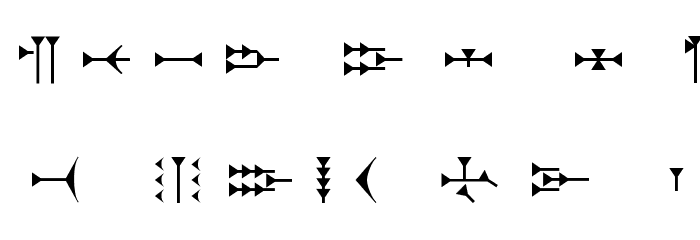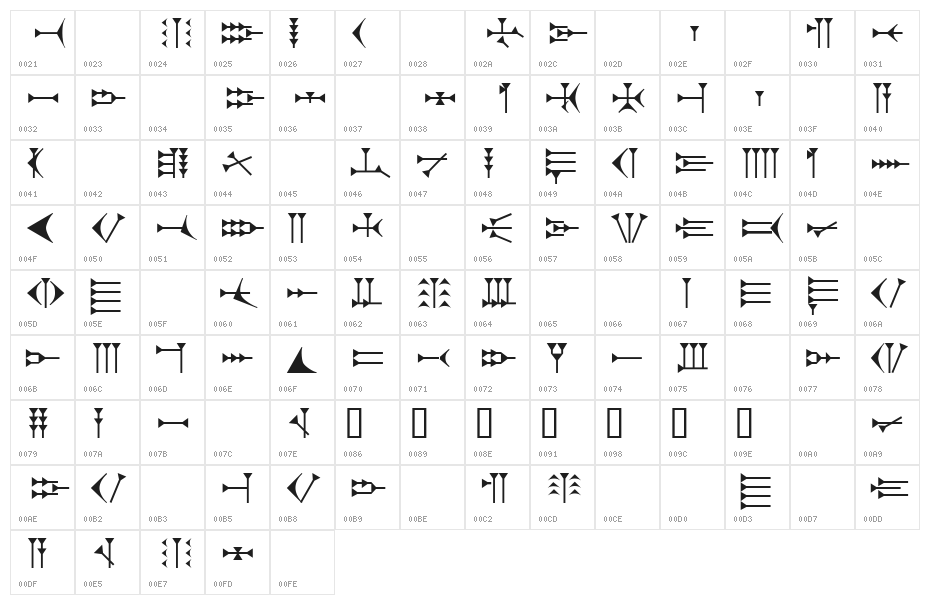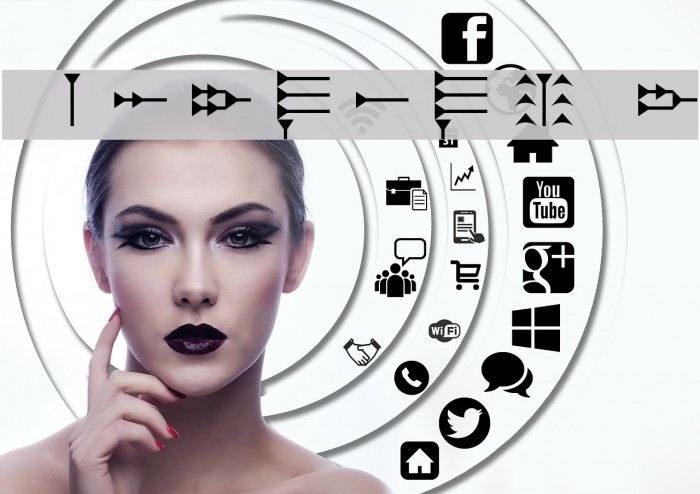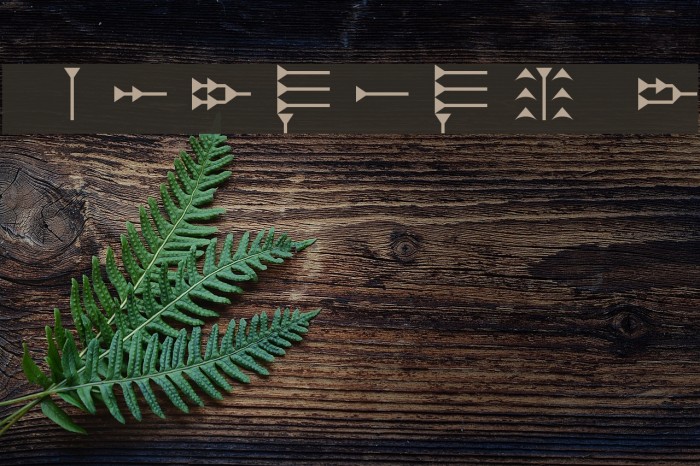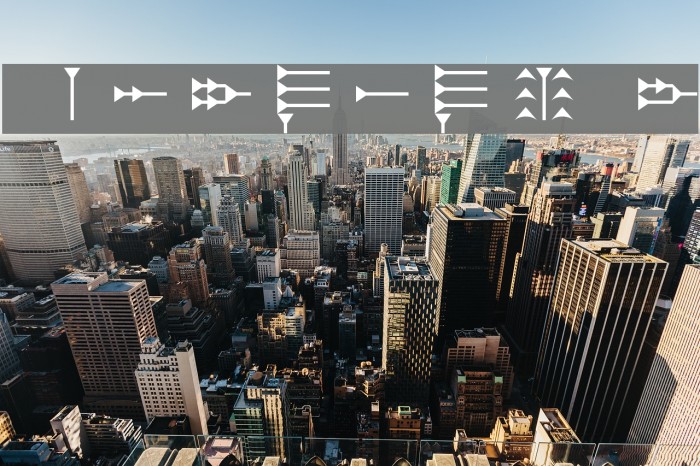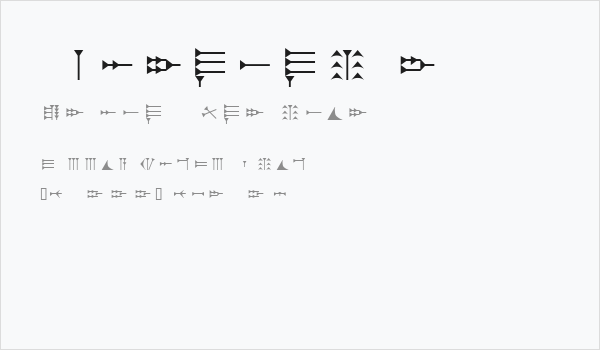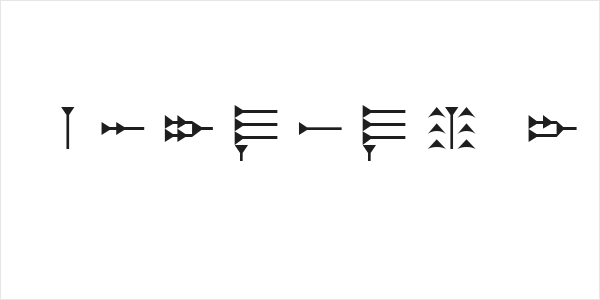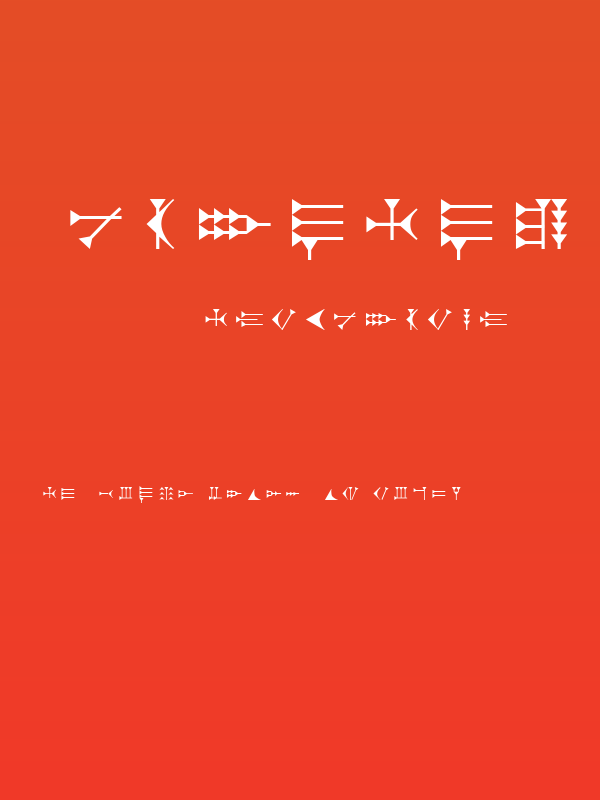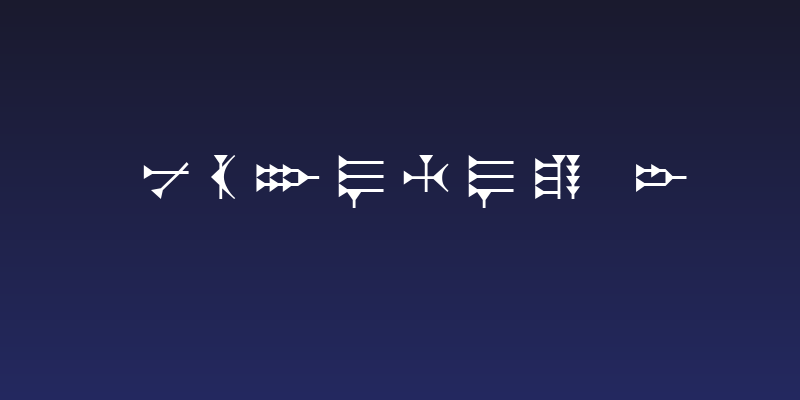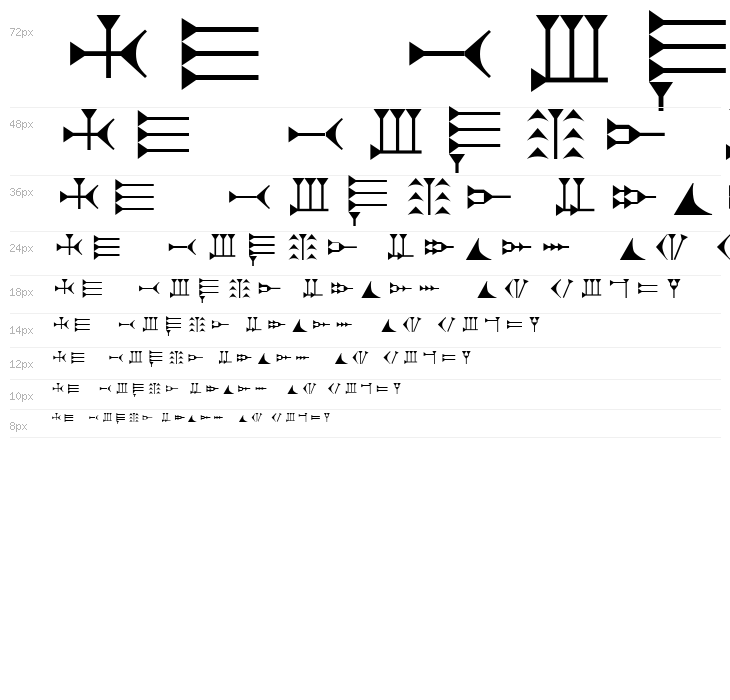
Ugaritic 3 Font
Ugaritic 3 Description
A geometric, wedge-shaped script inspired by ancient cuneiform writing, featuring angular strokes and triangular impressions. The glyphs are composed of repeated marks and abstract forms, evoking a historical and archaeological aesthetic.
| Overall Style | Ancient, Decorative, Historical |
| Use Case | Logos, Posters, Themed headlines, Educational graphics |
| Proposed Projects | Historical recreations, educational materials, museum displays, fantasy world-building, archaeological presentations. |